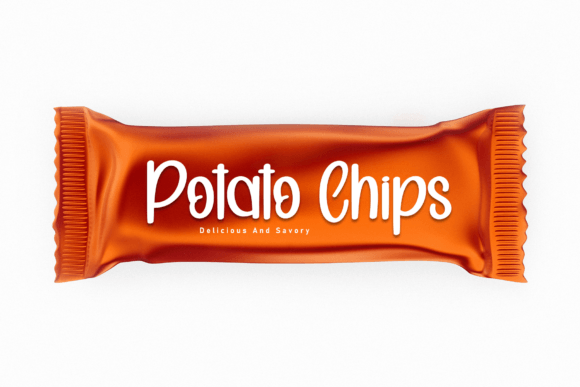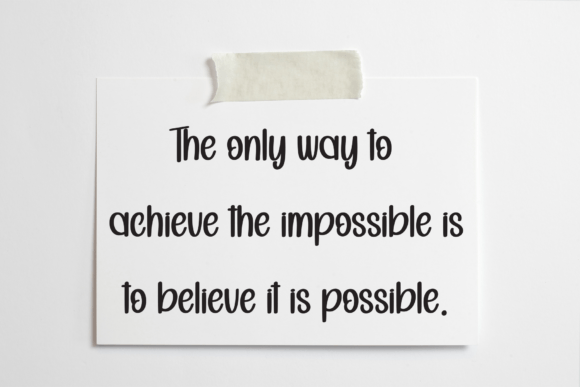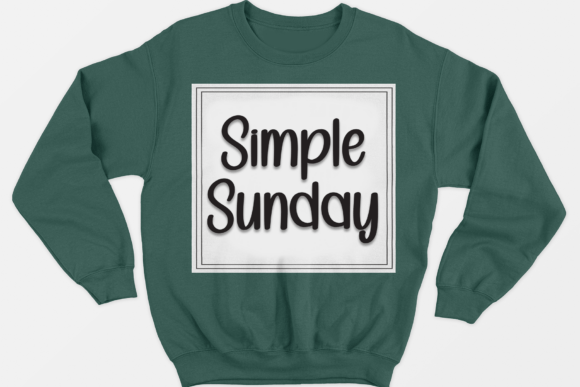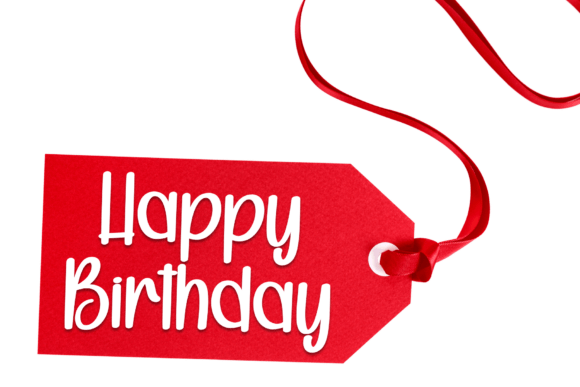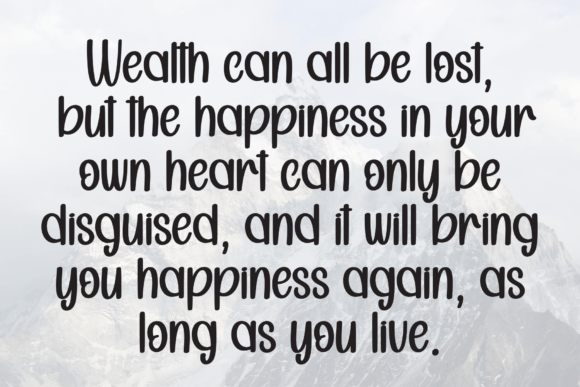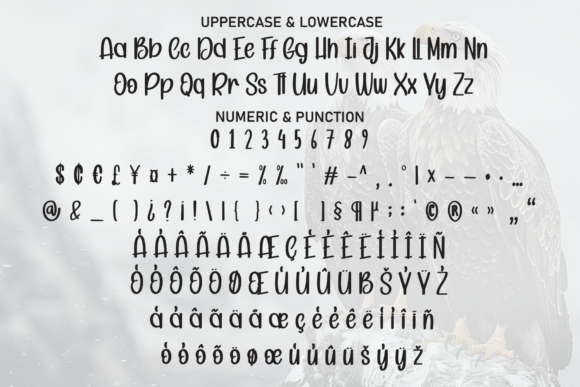
Discover the Soaring Charm of Eagle Highland Font
As a designer, there’s nothing quite like the thrill of creating something new and original. It’s that moment when your ideas come together, and you see your concept take flight – just like the majestic eagle soaring through the skies. But what if you could capture that same sense of freedom and creativity in your designs? Enter the Eagle Highland Font, a bold, handwritten font that’s sure to make a statement.
With its unique and lively style, the Eagle Highland Font is perfect for eye-catching titles and creative designs. Its strong, expressive letters are sure to grab attention and leave a lasting impression. Whether you’re a seasoned designer or just starting out, the Eagle Highland Font is a valuable addition to your toolkit. Its versatility and charm make it a go-to choice for designers looking to add a touch of personality to their work.
Eagle Highland Font Key Features
- Font Family: Eagle Highland Font is a unique, high-end font family that includes a range of styles, from elegant script to bold sans-serif.
- Unique Characteristics: Features a distinctive, hand-crafted feel with intricate details and subtle flair, making it perfect for high-end branding and design projects.
Eagle Highland Font Review
Overall, I was pleasantly surprised by the Eagle Highland Font. Here’s what I liked and what I didn’t:
- The font has a unique and rustic feel to it, making it perfect for outdoor or nature-inspired designs.
- The letterforms are well-spaced and easy to read, even at smaller font sizes.
- The font family includes a range of weights and styles, giving designers plenty of flexibility.
- The font is highly legible, making it suitable for body text as well as headlines.
- The font may be too rustic or rough for some designs, especially those that require a more modern or sleek look.
- The font lacks a clear distinction between uppercase and lowercase letters, which may make it difficult to read in certain contexts.
- The font family is not as extensive as some other popular fonts, which may limit its versatility.
The Eagle Highland Font is a solid choice for designers looking for a unique and rustic font. While it may have some limitations, its legibility and flexibility make it a great option for a variety of projects. With a little creativity, designers can push the font to its limits and create some truly unique and effective designs.
Tips for Getting the Most Out of the Eagle Highland Font
To get the most out of the Eagle Highland font, use it for headings and titles to add a touch of elegance and sophistication to your designs. The font works particularly well with bold and playful designs, making it perfect for wedding invitations, posters, and social media graphics.
The Eagle Highland font is commonly used for:
- Posters and flyers
- Social media graphics and ads
- Business cards and branding materials
Compared to Eagle Highland Font, Great Vibes Font has a more refined and polished feel. While Eagle Highland Font is great for casual, rustic designs, Great Vibes Font is better suited for formal, high-end projects.